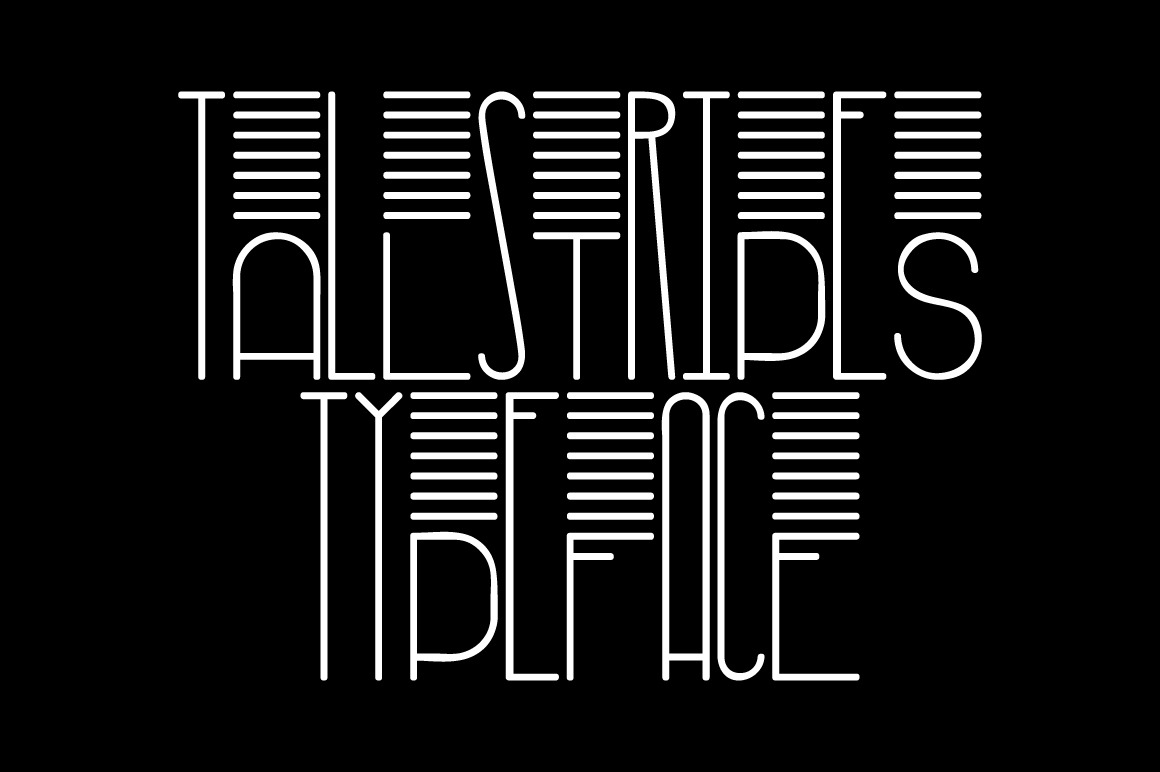
TallStripes typeface
The main idea of TallStripes typeface is that the uppercase and lowercase letters can be combined in any possible variations for original result. This font will be perfect for many different projects: quotes, blog headers, posters, branding, logo, fashion, apparel, invitation, stationery, etc.